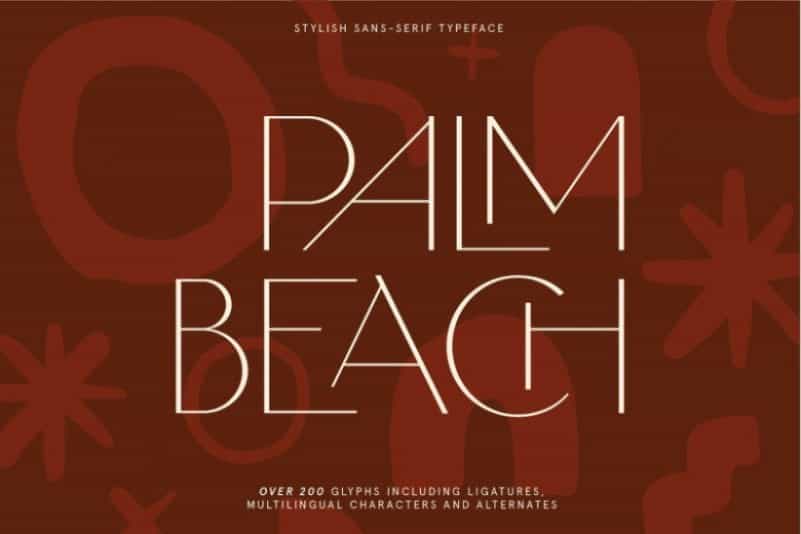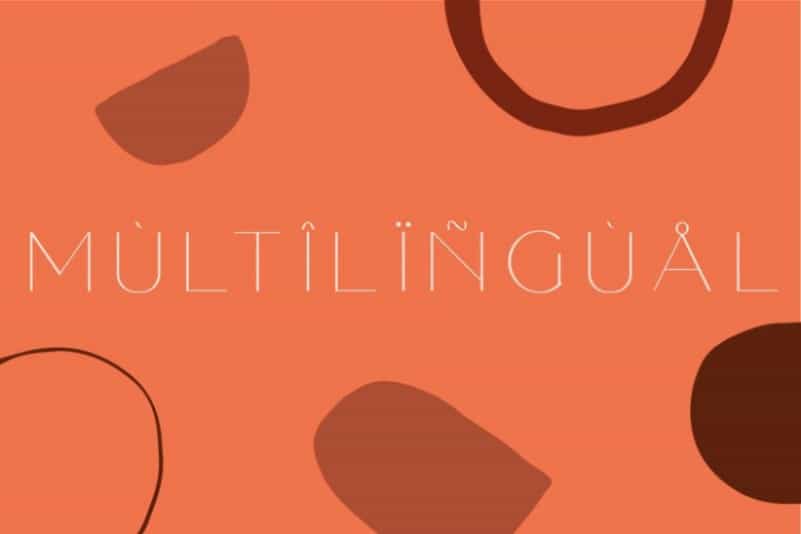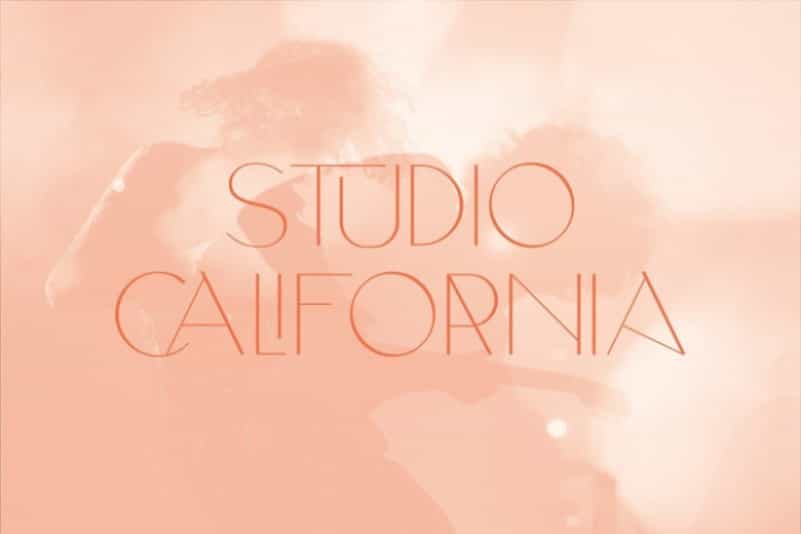
Palm Beach Font is a new typeface that has been hand drawn and comes with a huge amount of cool characters, symbols, and styles. Palm Beach Handmade Sans is perfect for quotes, logos, T-shirts, advertisement, wedding invitation and packaging design.